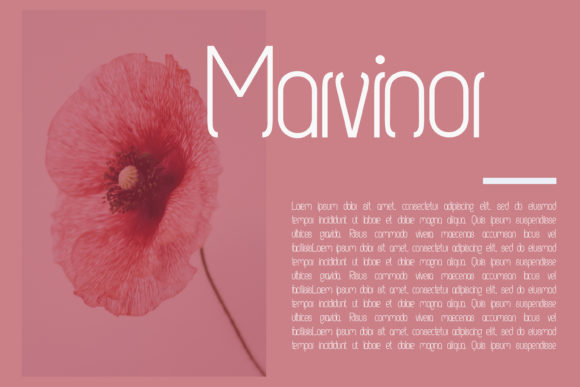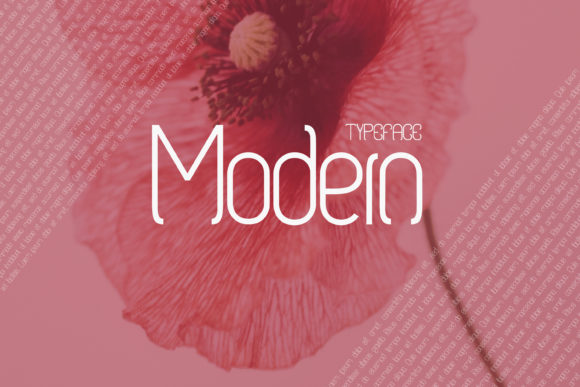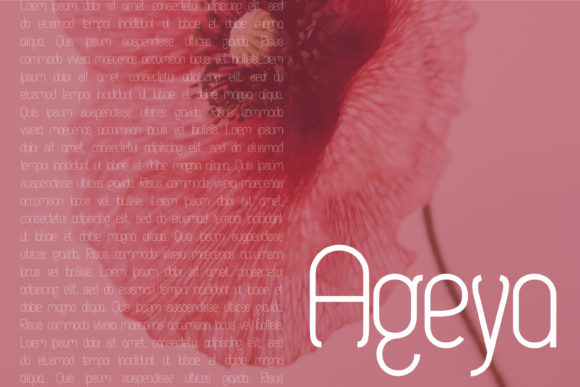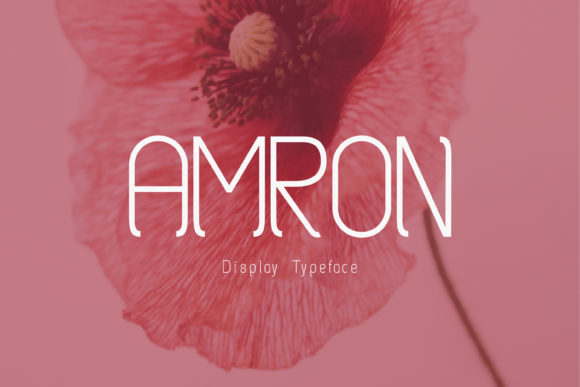
Introducing Amron Font: The Epitome of Elegance and Simplicity
In the realm of typography, fonts play a pivotal role in conveying messages, evoking emotions, and creating lasting impressions. Among the myriad of fonts available, Amron Font stands out for its unique blend of elegance, simplicity, and versatility. This article aims to provide an in-depth look at Amron Font, exploring its characteristics, uses, and benefits for designers and crafters.
What is Amron Font?
Amron Font is a thin, tall, and simple lettered display font that has garnered attention for its clean and distinct appearance. Its design is characterized by slender lines and a straightforward approach, making it an ideal choice for projects that demand a touch of sophistication and elegance.
Key Features of Amron Font
- Thin and Tall Letters: The font’s tall and thin letters are designed to make a statement, adding a level of refinement and poise to any design.
- Simple yet Distinct: Despite its simplicity, Amron Font boasts a unique character that sets it apart from more ornate fonts, making it perfect for those seeking a clean yet impactful look.
- Versatility: Amron Font’s adaptability makes it suitable for a wide range of applications, from web designs and business cards to posters and digital media.
Uses of Amron Font
Amron Font’s versatility is one of its most compelling attributes, making it suitable for various design projects. Here are some of the ideal uses for Amron Font:
- Web Designs: Adding a touch of elegance to websites, Amron Font can be used for headings, titles, and even short paragraphs to create a visually appealing interface.
- Business Cards: For professionals looking to make a lasting impression, Amron Font offers a clean and sophisticated look that can elevate the humble business card into a memorable keepsake.
- Digital Media: Whether it’s for social media graphics, blog posts, or digital advertisements, Amron Font’s clarity and readability make it an excellent choice.
- Print Materials: Beyond digital use, Amron Font can also enhance print materials such as brochures, flyers, and posters with its distinctive yet understated charm.
For designers and crafters, Amron Font offers several benefits that can enhance their work:
- Ease of Use: Its simple and clean design makes it easy to pair with other fonts, allowing for creative flexibility.
- Emotional Impact: The font’s elegant appearance can evoke a sense of professionalism and sophistication, ideal for brands looking to convey these values.
- Readability: Amron Font’s clear and distinct letters ensure readability, even at smaller sizes, making it practical for a variety of applications.
Amron Font is a remarkable addition to the world of typography, offering a unique blend of thin, tall, and simple design elements that cater to a wide range of design needs. Its elegance, versatility, and readability make it an excellent choice for designers and crafters looking to add a touch of sophistication to their projects. Whether you’re working on web designs, business cards, or any other creative endeavor, Amron Font is sure to leave a lasting impression.
Embracing Amron Font in your design projects can open up new avenues for creativity and expression. Its unique characteristics and versatility ensure that it can meet the demands of a wide array of design challenges, making it a valuable addition to any designer’s toolkit.